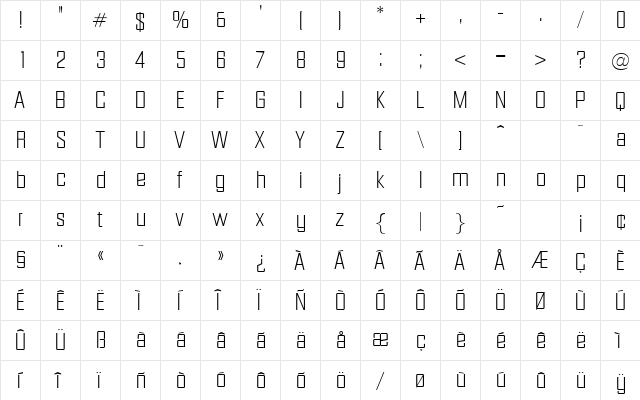
Distance Regular
Design Context for Distance Typeface
Distance is a composed and adaptable typeface that performs quietly and consistently across a wide range of design contexts.